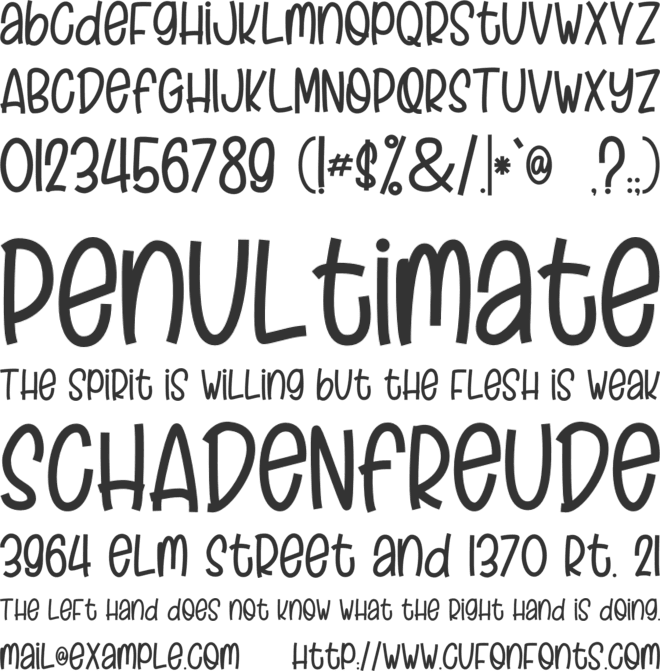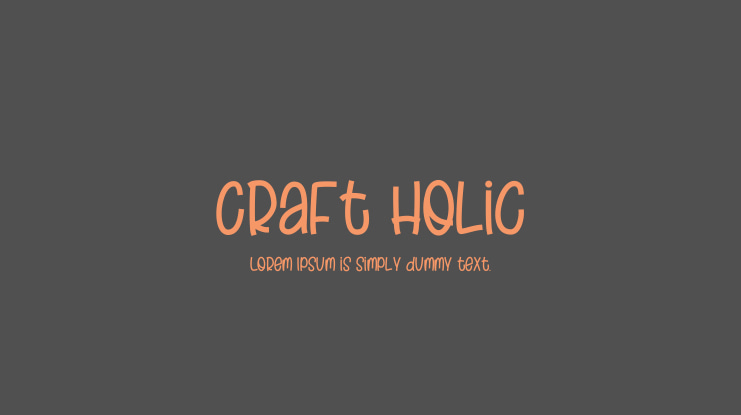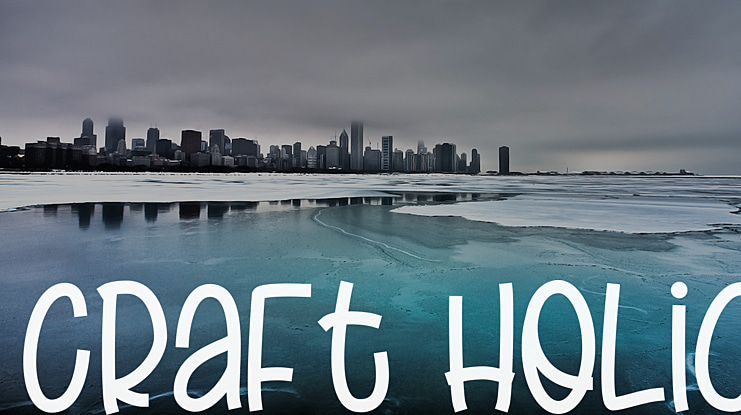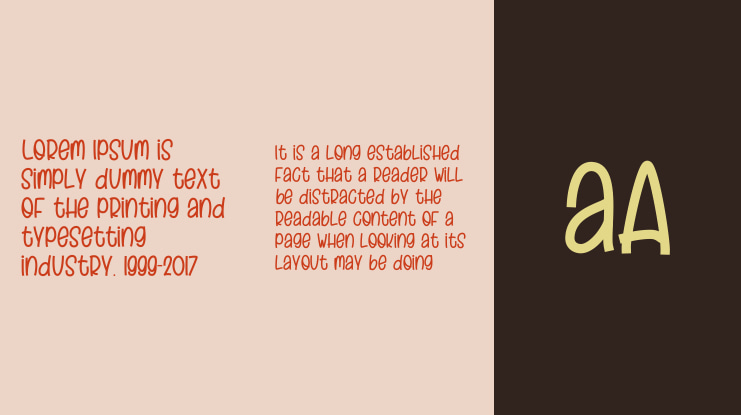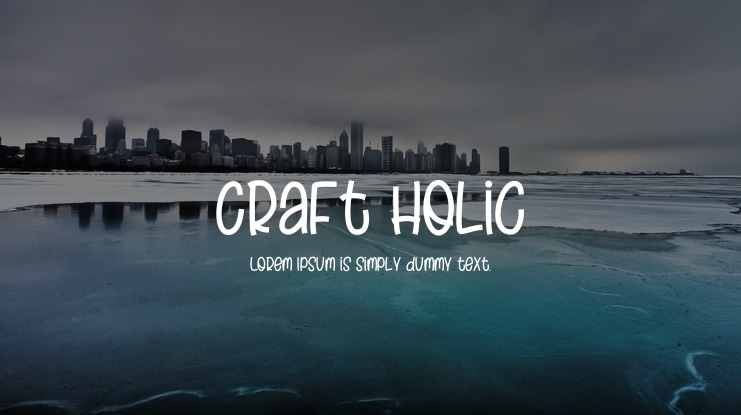
Craft Holic Font
Sigit Dwipa Raharjo
Say hello for our best seller " Craft Holic " A Playfull Font This is perfect for Crafting, Branding, Logos, packaging, masterheads and more.